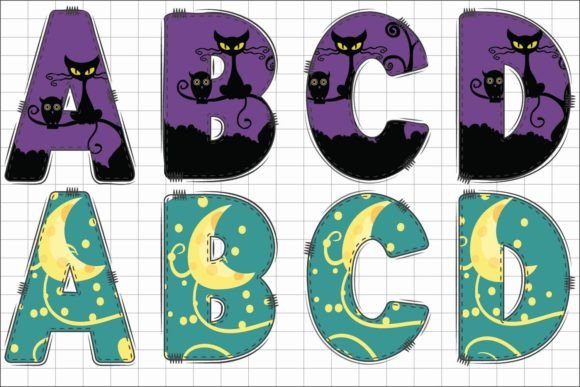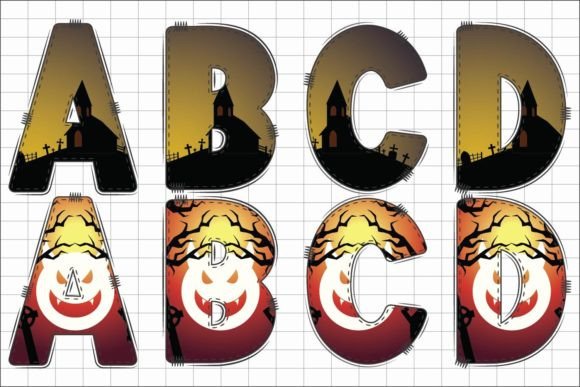
Get Ready for a Spooky Creative Night
As the sun sets on a crisp autumn evening, and the moon casts an eerie glow, the imagination begins to run wild. You’ve finally found the perfect moment to unleash your creativity and bring your spooky vision to life. Whether you’re a seasoned designer or a crafty enthusiast, you’re probably on the lookout for the perfect font to add that extra oomph to your Halloween creations.
Enter the enchanting Halloween Night Font, a set of 4 colored font styles designed to capture the essence of this magical night. This versatile font is perfect for designers who want to create eye-catching decorations, spooky invitations, and eerie signage that will leave a lasting impression. With its unique blend of tradition and creativity, the Halloween Night Font is a valuable addition to any designer’s toolkit.
Halloween Night Font Key Features
- Font Family: Halloween Night is a unique, hand-drawn font designed specifically for Halloween-themed designs and projects.
- Character Set: Includes a wide range of characters, including uppercase and lowercase letters, numbers, and special symbols, making it suitable for various applications.
- Unique Characteristics: Features a spooky, hand-drawn design with intricate details and textures, adding a touch of eeriness to any design project.
Halloween Night Font Review
Overall, I think Halloween Night Font is a fun and spooky addition to any design project. Here are some things that stand out:
- ✨ Unique and creative design: The font has a great blend of modern and classic elements, making it perfect for Halloween-themed projects or anything that needs a touch of whimsy.
- ✨ High-quality glyphs: The font includes a wide range of glyphs, including uppercase and lowercase letters, numbers, and punctuation marks, which ensures that you’ll have everything you need to create a cohesive design.
- ✨ Versatility: Halloween Night Font can be used for a variety of projects, from logos and posters to digital graphics and social media posts.
- ⚠️ Limited language support: The font only includes glyphs for the English language, which may limit its use for projects that require other languages.
- ⚠️ Not ideal for body text: Due to its ornate design, Halloween Night Font may not be the best choice for large blocks of body text, where legibility is crucial.
Overall, I think Halloween Night Font is a great choice for designers who want to add a touch of spooky flair to their projects. While it has some limitations, its unique design and high-quality glyphs make it a valuable addition to any design library.
Halloween Night Font Practical Application Guide
Tips: Use Halloween Night Font for spooky titles, headings, and quotes to set the mood for your design.
Tips: Use Halloween Night Font to create spooky invitations, posters, or social media graphics.
Tips: Use Halloween Night Font for presentations, party invitations, or spooky-themed documents.
Halloween Night Font is perfect for:
- Spooky titles and headings
- Invitations and party graphics
- Social media graphics and posts
- Spooky-themed documents and presentations
Q: Is Halloween Night available in different font weights?
Yes, Halloween Night is available in multiple font weights, including regular, bold, and italic. This allows you to customize your designs and choose the perfect weight to match your project’s style and tone.